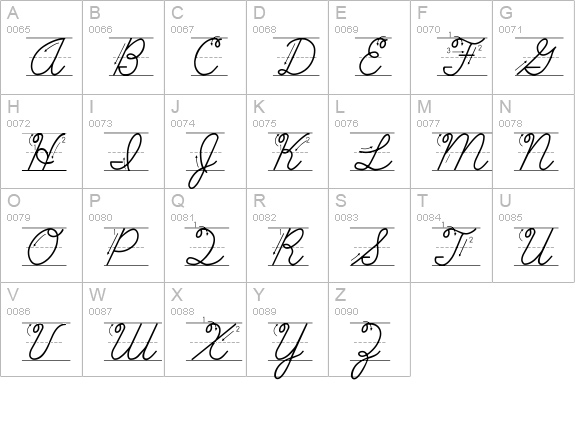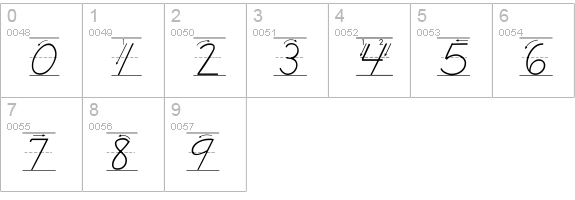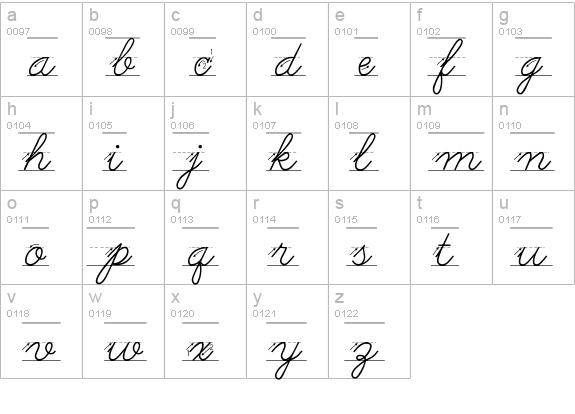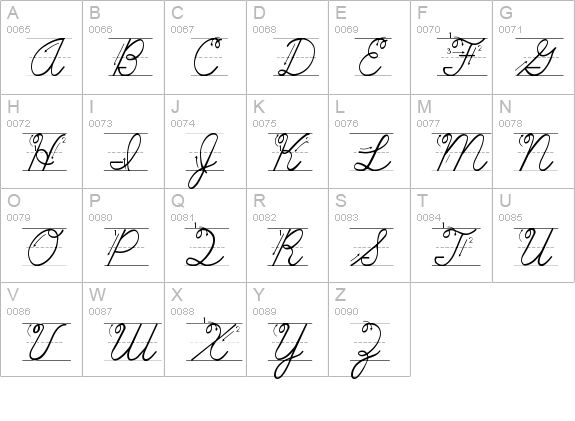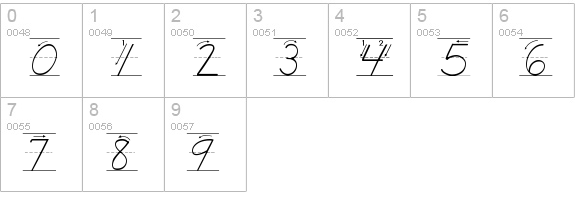
AbcCursiveArrow Font Details
Introducing AbcCursiveArrow font, a beautifully crafted typeface that exudes elegance and sophistication. This unique font features graceful cursive letterforms with distinctive arrow-like accents that add a touch of flair and creativity to any design project. Whether you're working on invitations, branding materials, or decorative pieces, AbcCursiveArrow font is sure to make a statement. The best part? AbcCursiveArrow font is completely free to download at FontsMarket.com, making it accessible to designers, artists, and creatives looking to add a special touch to their work without breaking the bank. Embrace the beauty and versatility of AbcCursiveArrow font today and elevate your designs with its charming and stylish appeal.